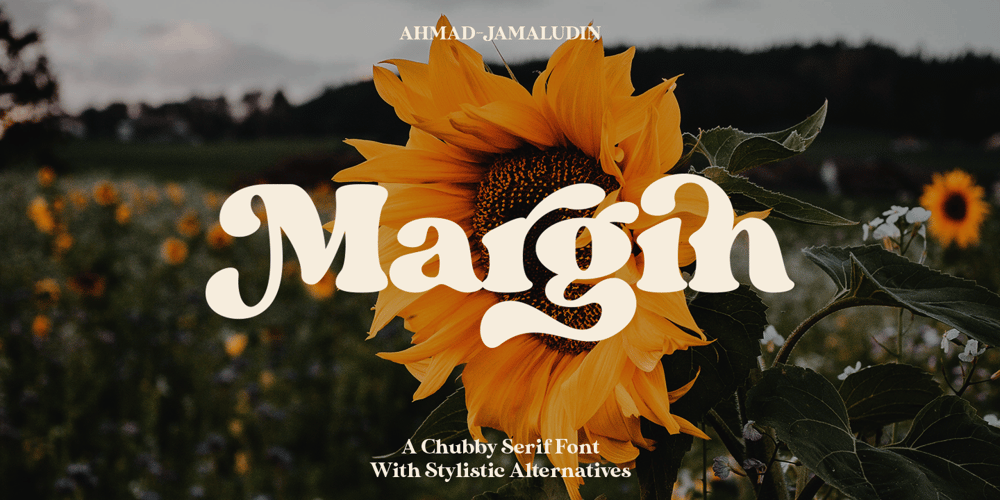
Margin Font Family was designed by Ahmad Jamaludin and published by Ahmad Jamaludin. Margin contains 2 styles and family package options. I’m present to you, new retro serif called Margin!Margin is a stylish font that is both retro and bold font. It’s thick curves give a 70s groovy vibe with the serifs bringing it slightly back to traditionalMargin fits perfectly into those nostalgic moodboards and vintage logos. It come with a unique lower and uppercase plus numbers, punctuation & multilingual letters.What you get OTF Letters, numbers, punctuation, multilingual support, alternate and ligature Regular and Italic version Follow my shop for upcoming updates including additional glyphs and language support. And Please message me if you want your language included or If there are any features or glyph requests, feel free to send me a message, I would like to update it.Enjoy!